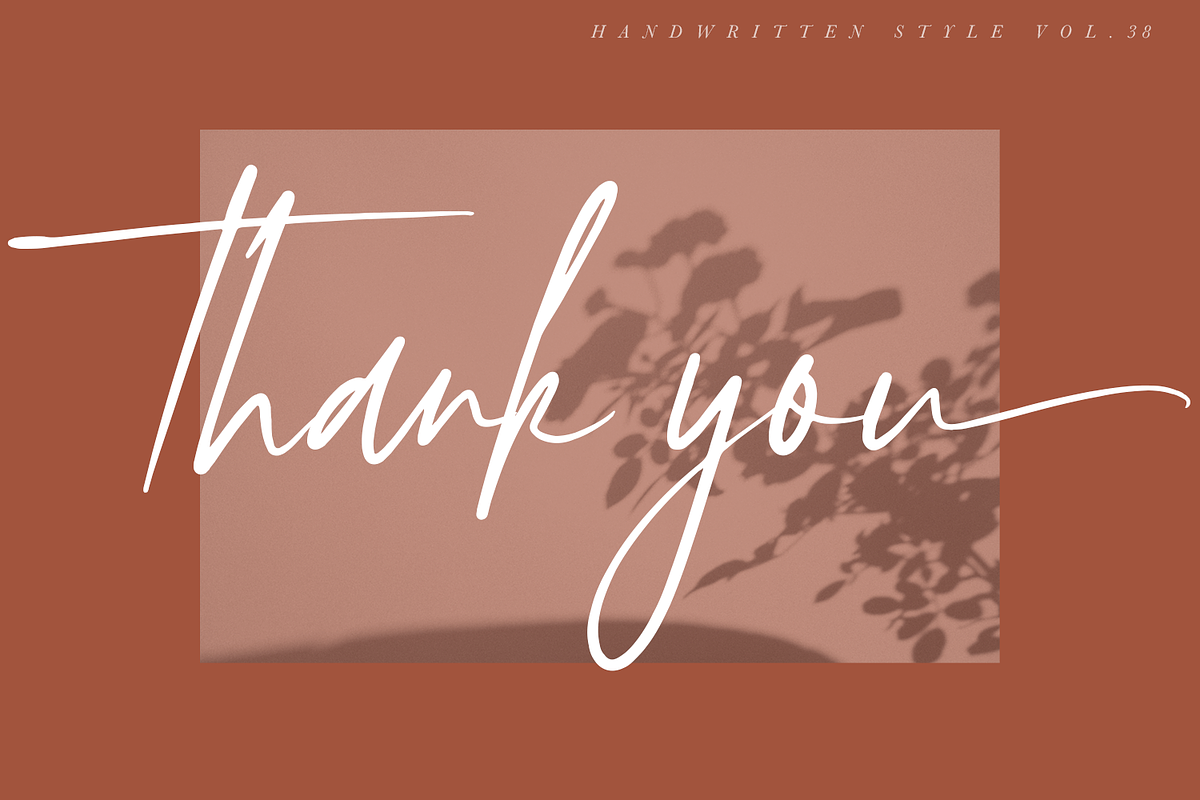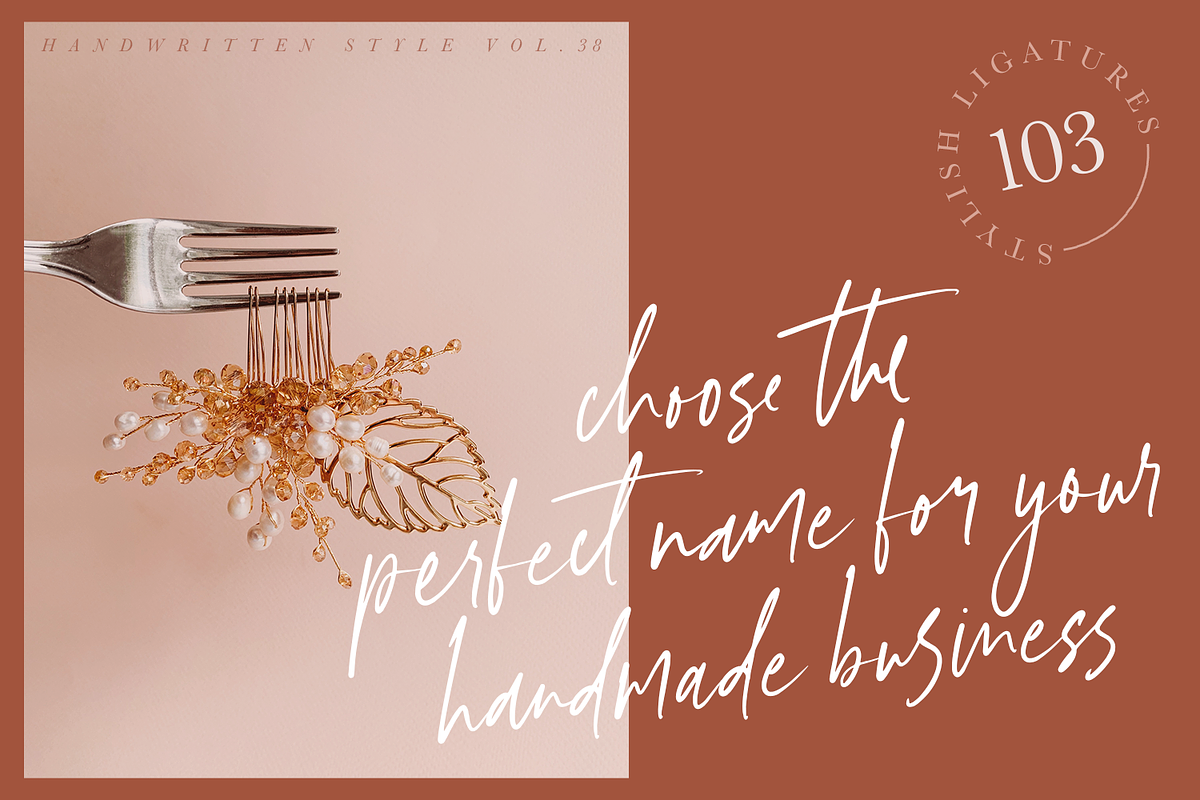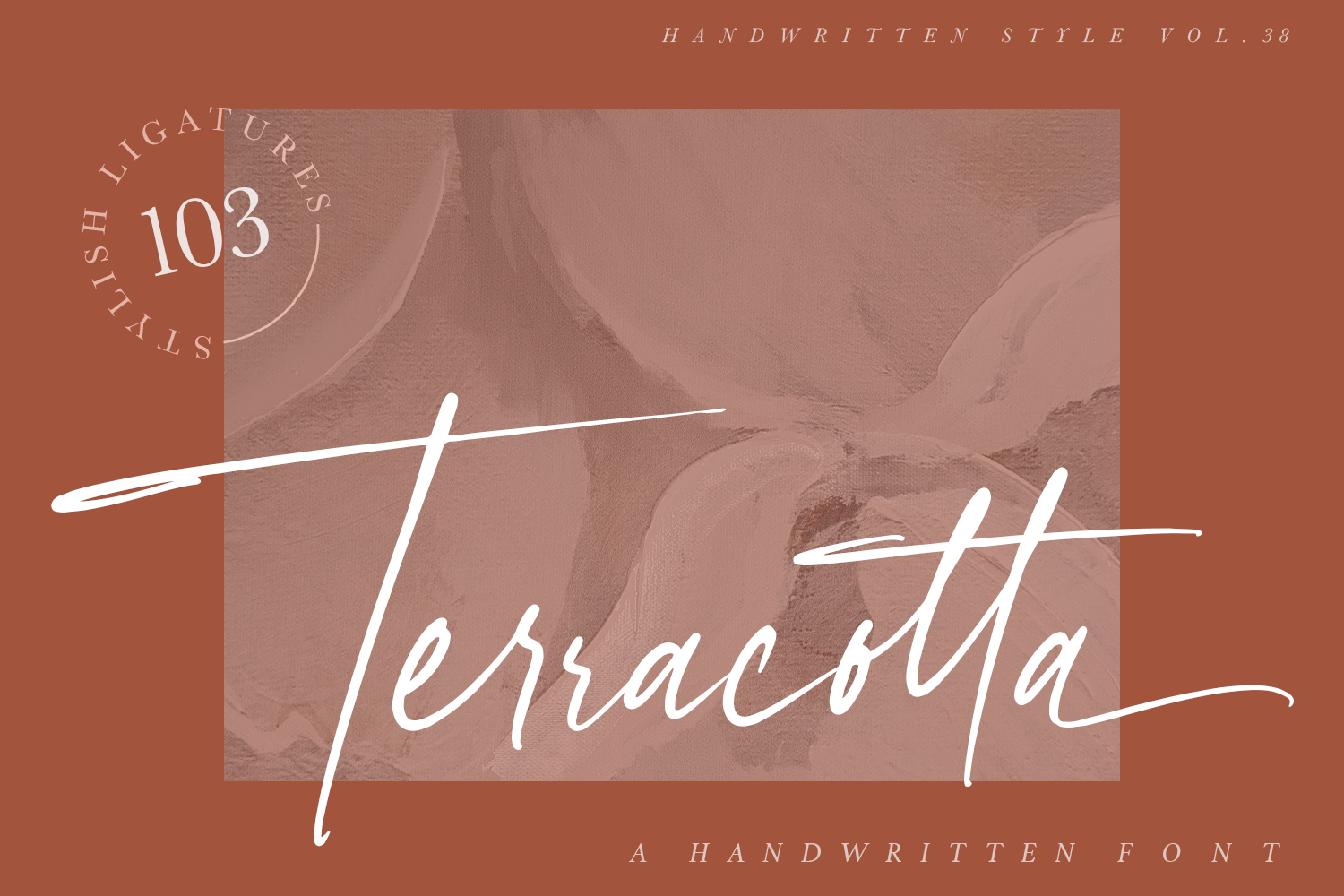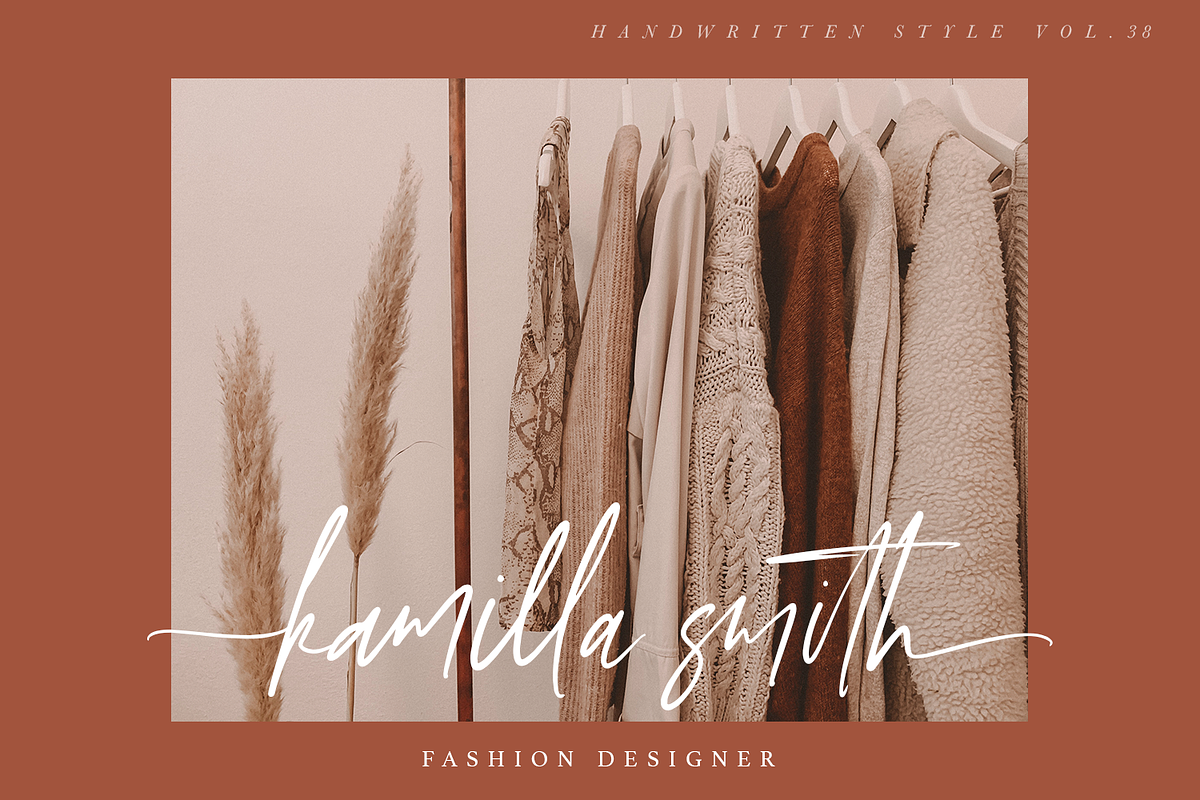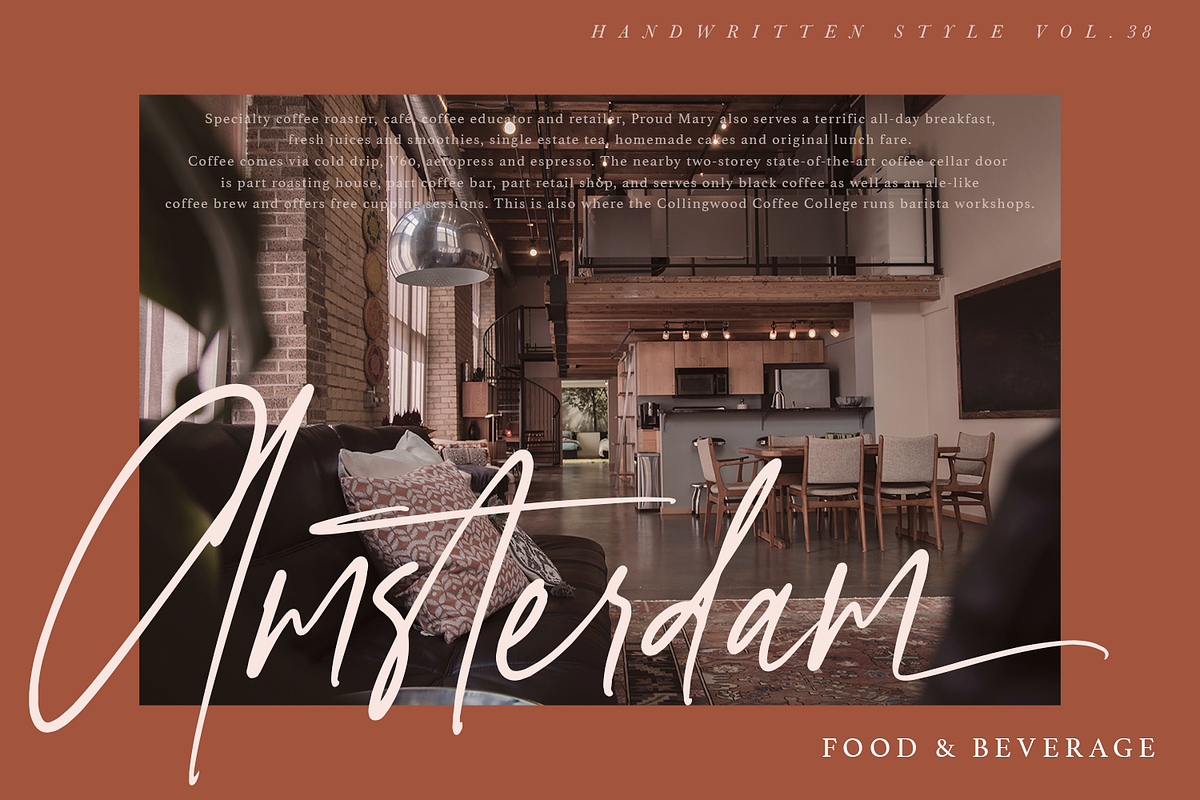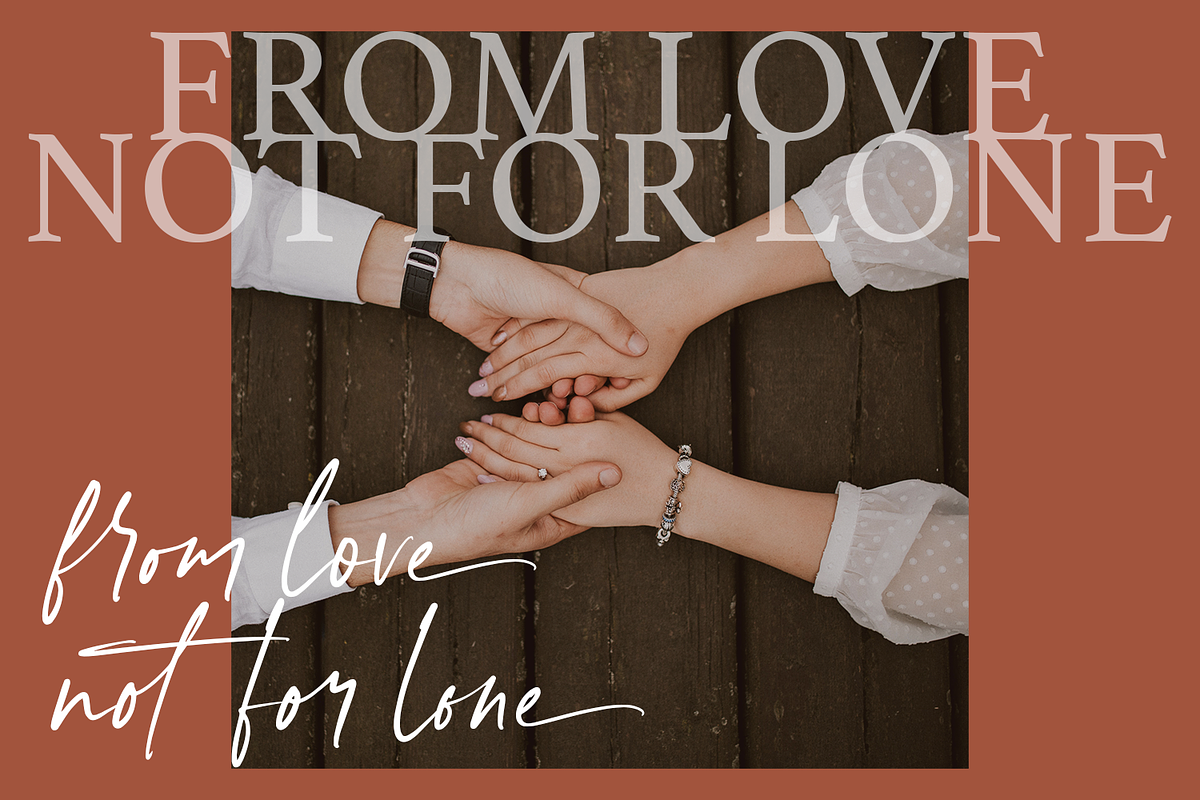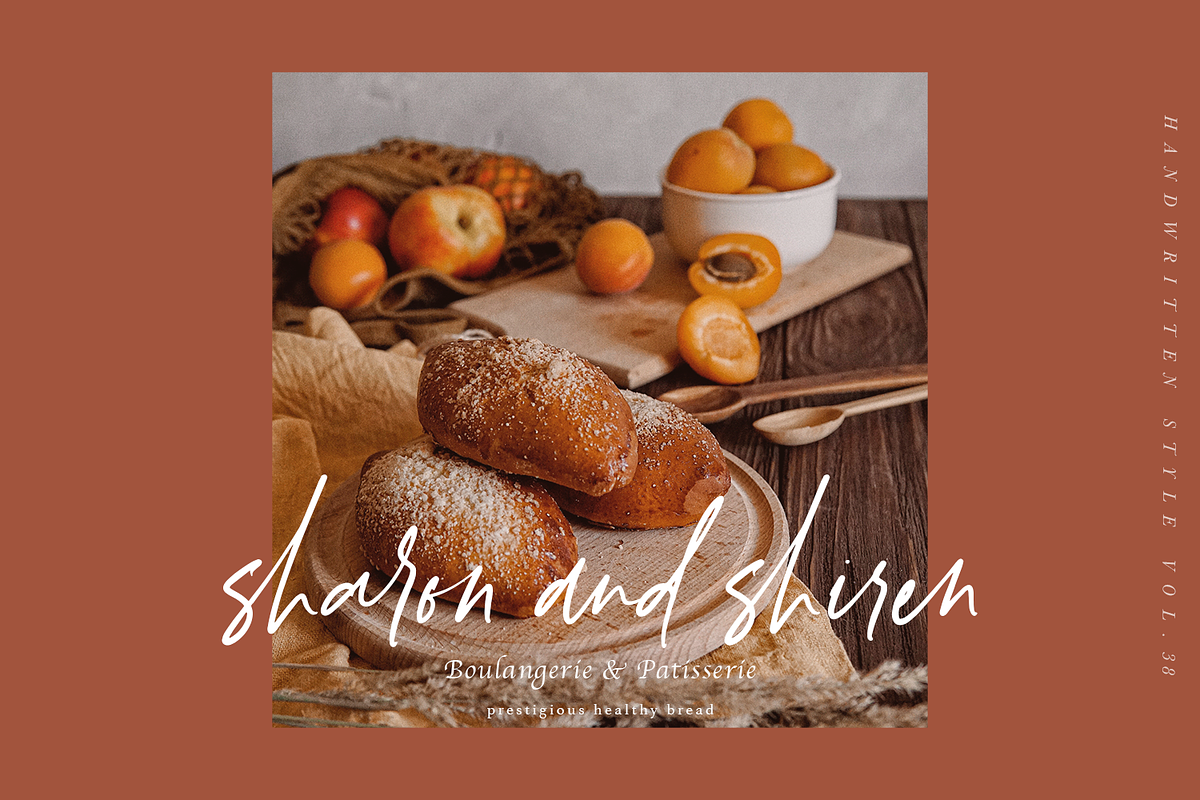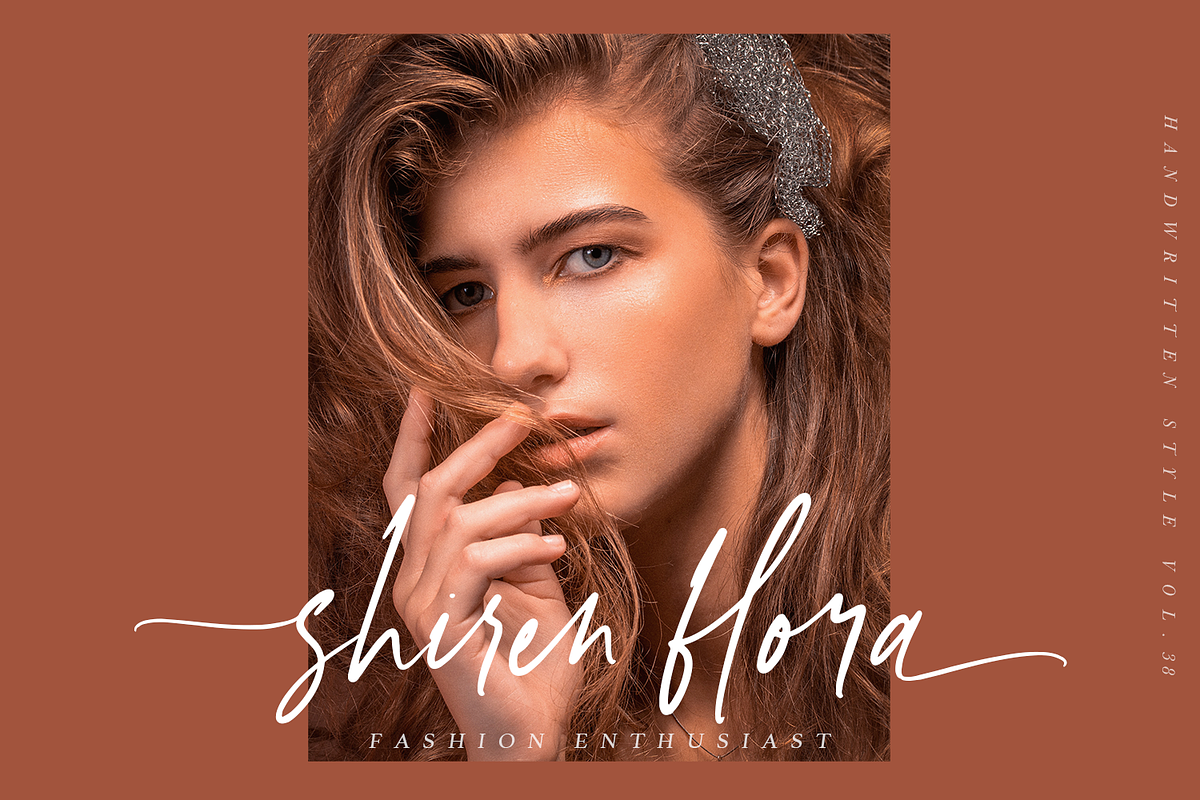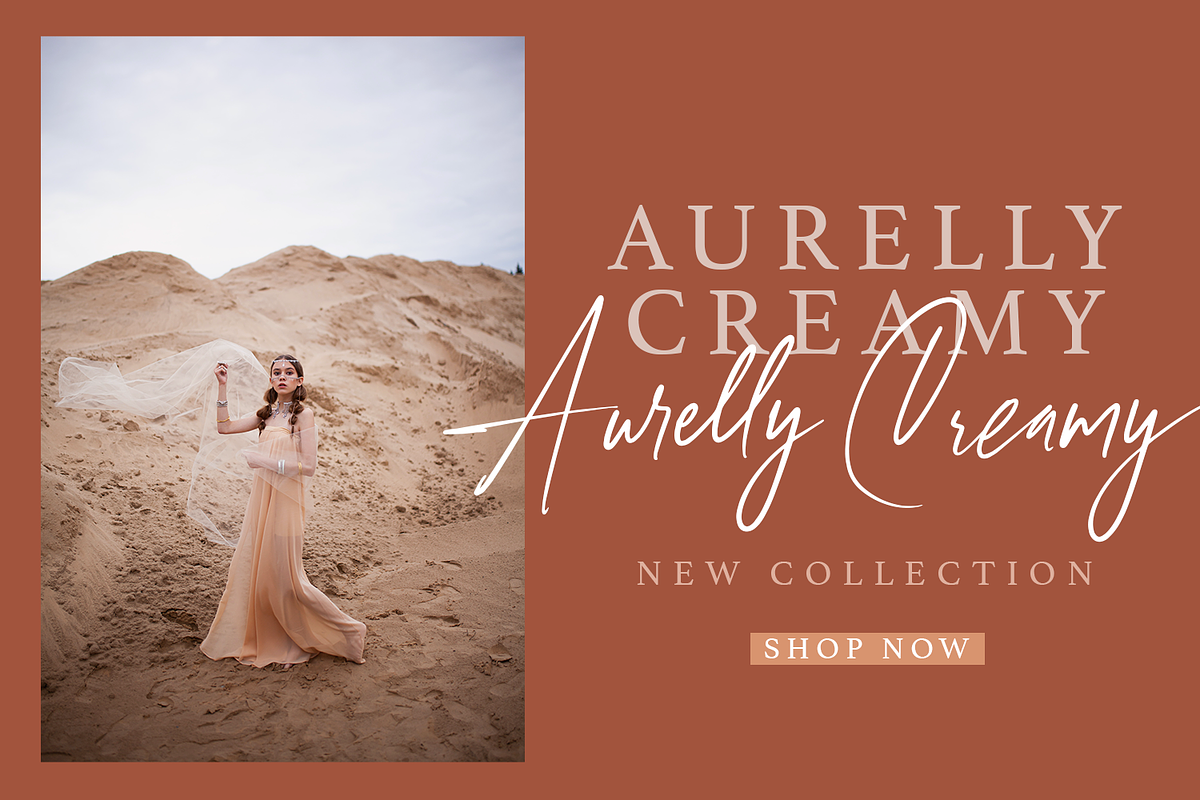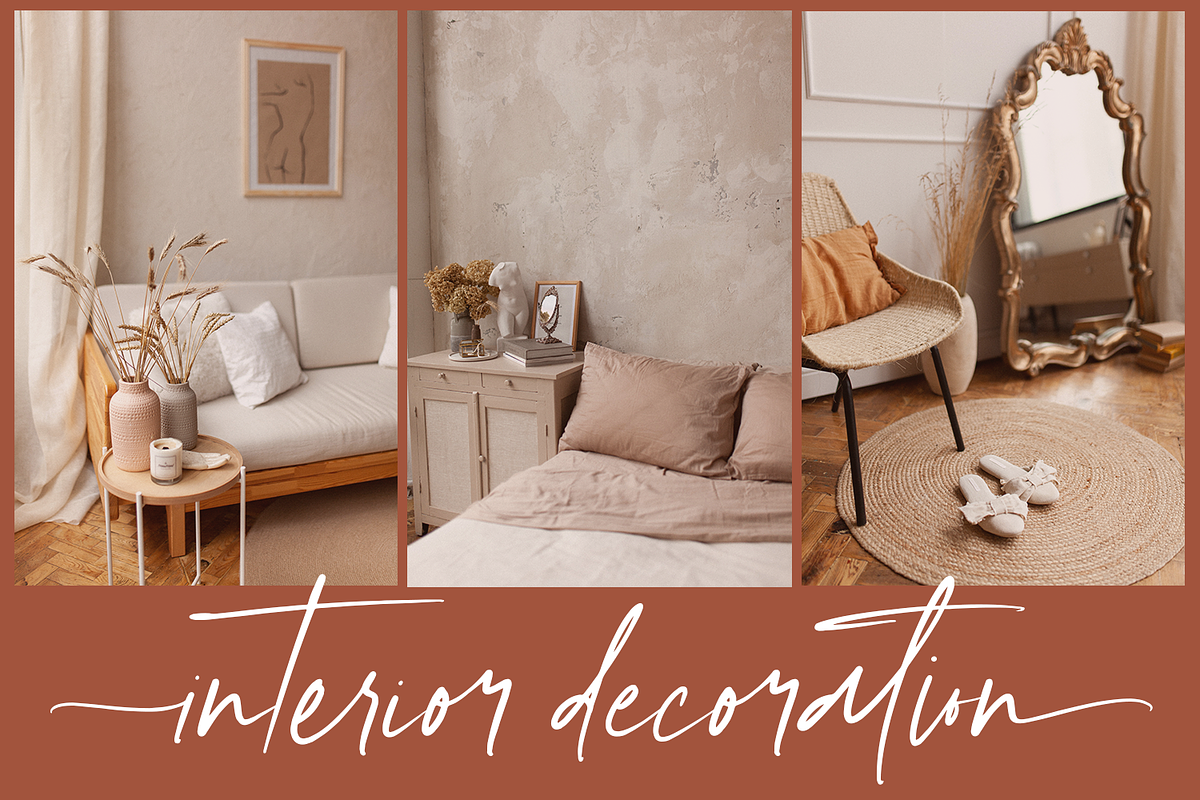
Teracotta - Handwritten Font
Hi everyone, I would like to introduce a new font Terracotta A Handwritten Font, with a signature style. I created this writing using a flat pen brush to produce a perfect handwritten character.
Terracotta - A Handwritten Font has a total of 2 alternative lowercase and several uppercase letters that you can change as you wish. Terracotta also has beginning and ending swashes in lowercase, and adds 100+ ligatures for your handwriting impression.
Terracotta can be used for various projects such as stationery invitations, social media, logos, weddings, branding, graphic design to support the project you want to work on. You can also use additional beginning and ending swash to beautify the logo that you created.